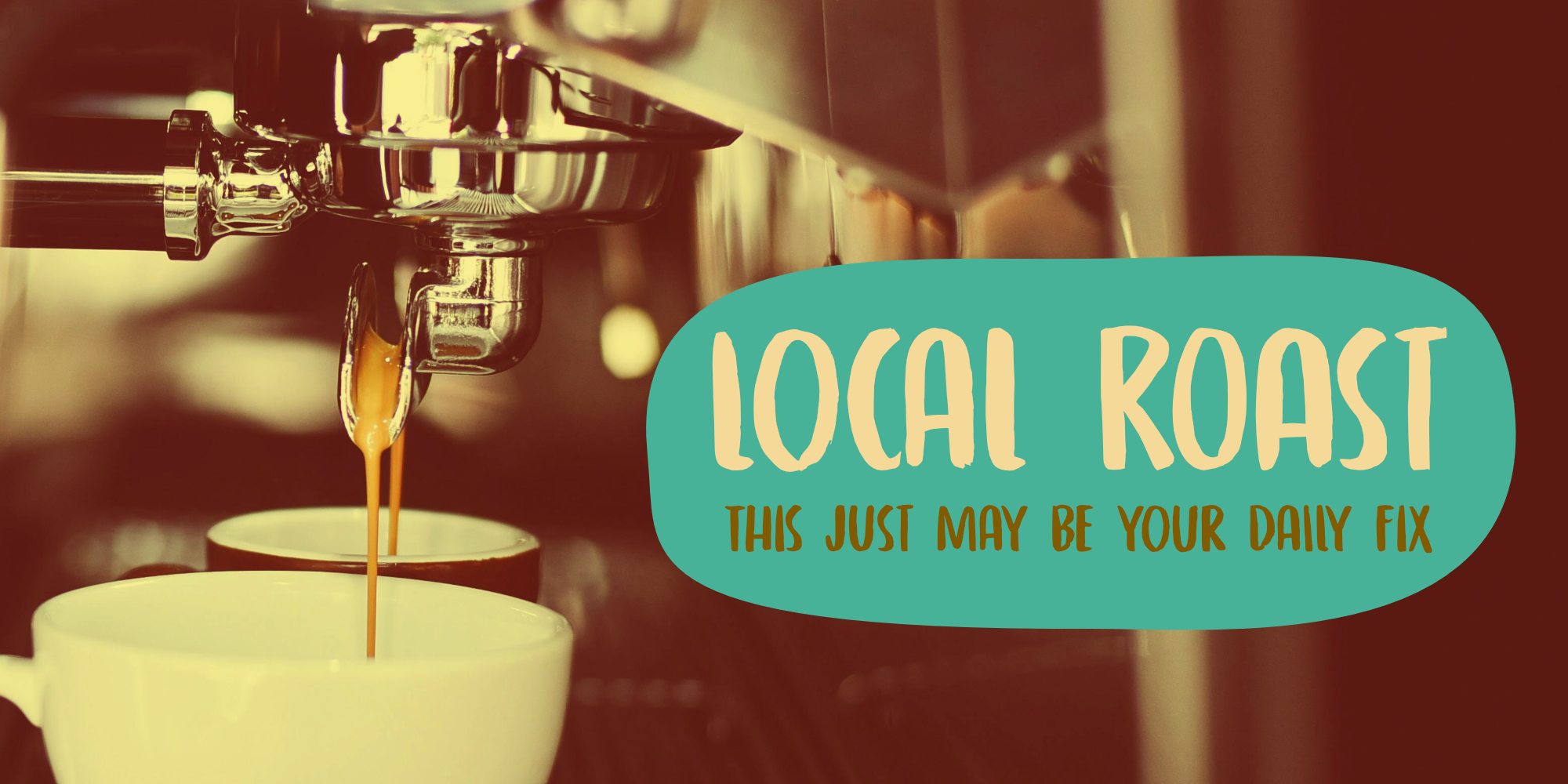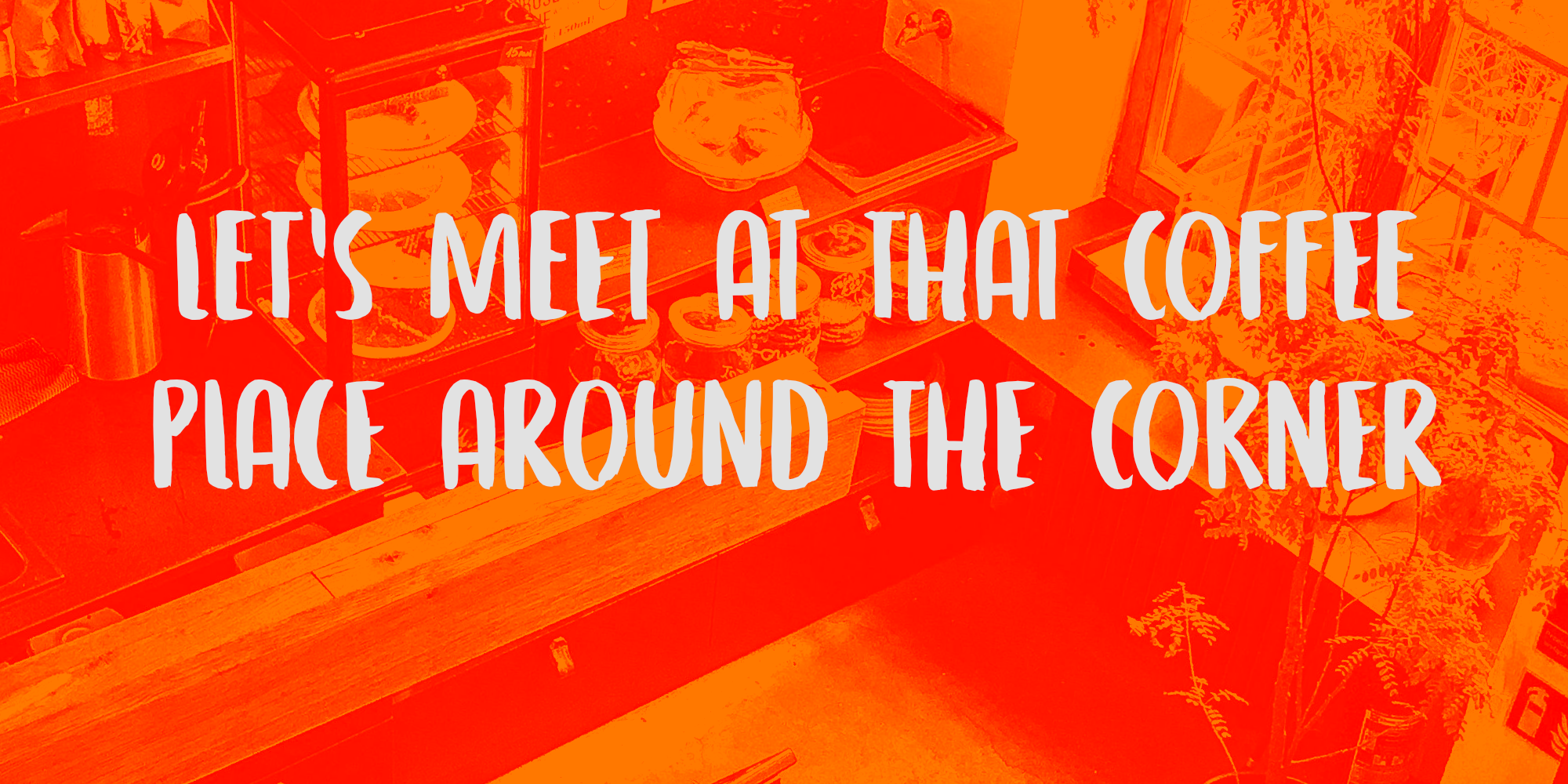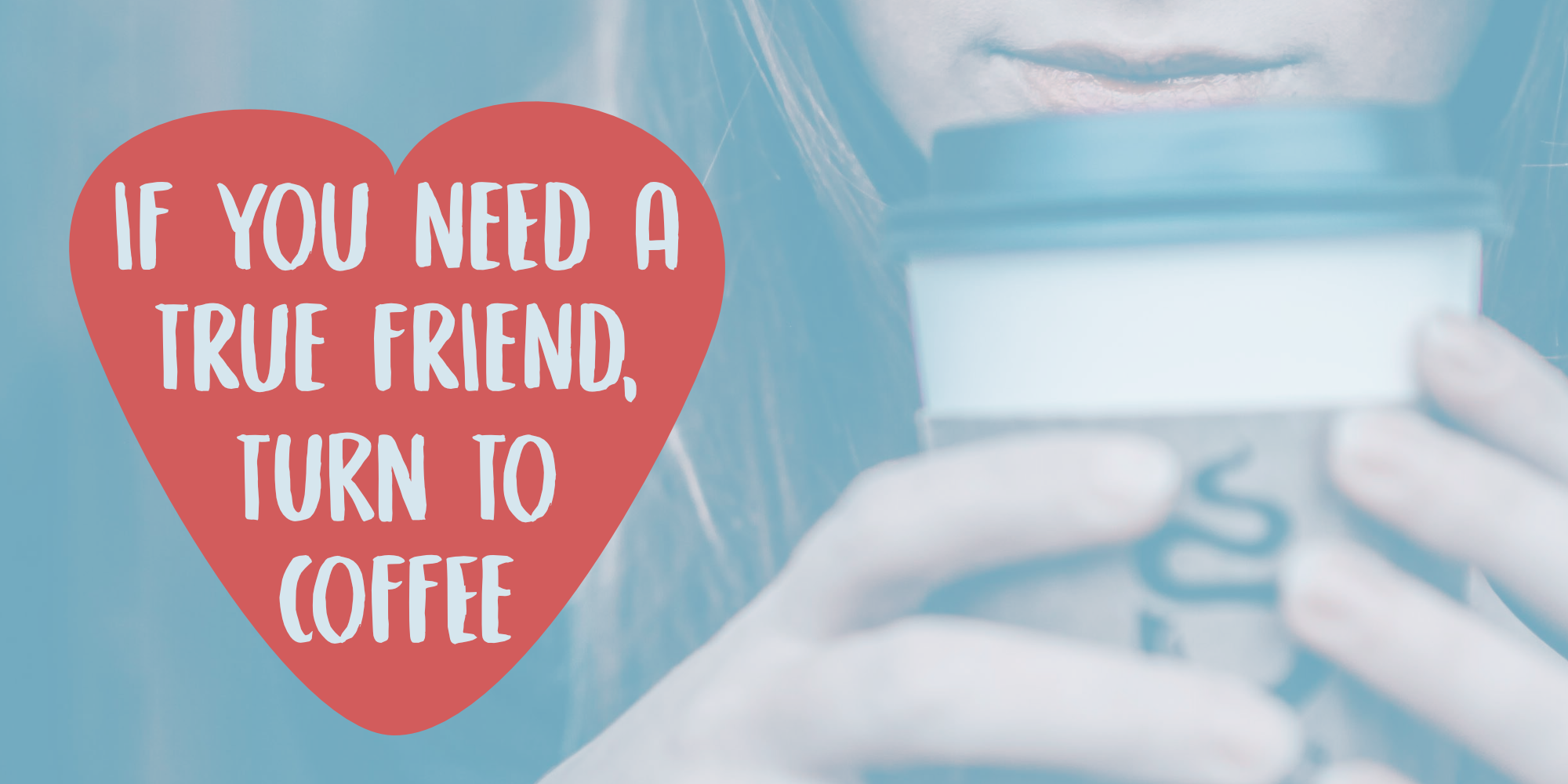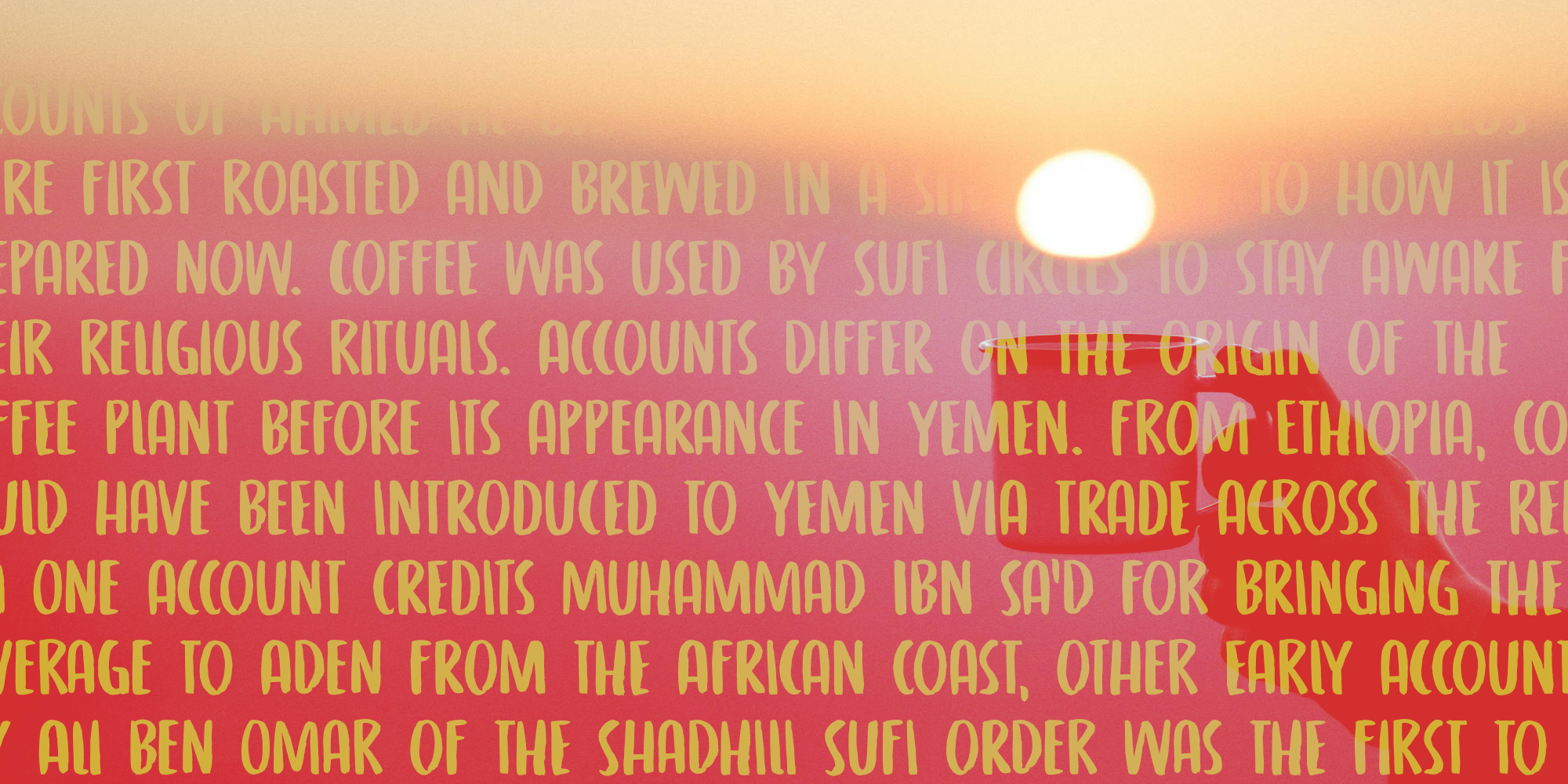
Local Roast (2 fonts)
Local Roast is a hand-painted font (Chinese Ink, cheap brush - you know the story). It comes with a set of alternates and extensive language support.